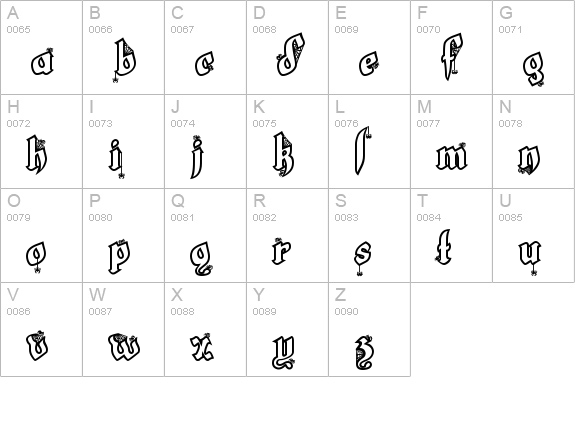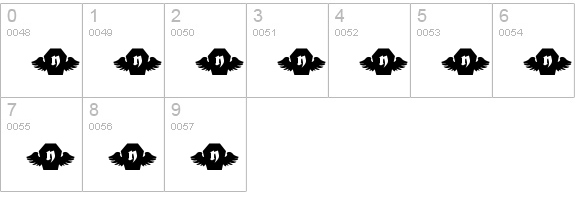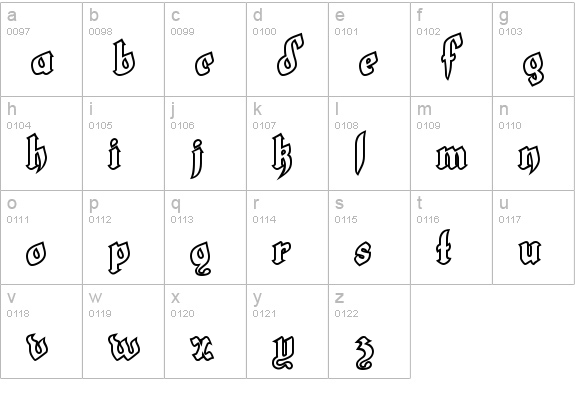
LT White Fang Font Details
LT White Fang is a captivating and versatile font that will make your designs come to life. Its unique and edgy style will add a touch of modernity and elegance to any project. With its sharp and jagged letterforms, LT White Fang is perfect for creating eye-catching headlines, logos, posters, and more. But what sets LT White Fang apart from other fonts is that it is not only visually stunning, but it is also free. That's right, this incredible font is freely available to download at FontsMarket.com. So you can use it in your personal and commercial projects without any restrictions. Whether you're a graphic designer, a web developer, or just someone looking to add a little flair to your documents, LT White Fang is the perfect choice. Its clean and crisp lines will ensure that your text stands out and grabs attention. Plus, its wide range of characters and ligatures give you endless possibilities for creative typography. So don't wait any longer. Download LT White Fang for free at FontsMarket.com and let your creativity soar. With this font, you'll be able to create stunning designs that leave a lasting impression on your audience.